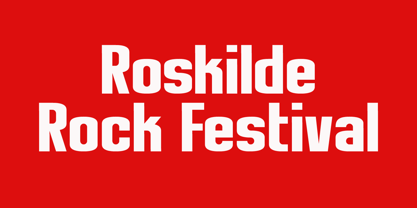
Roskilde
by Hanoded
About Roskilde Font Family
Roskilde is a city in Denmark, famous for its Rock Festival and its Viking Ship museum. Roskilde font is a very legible headline font.
About Hanoded
Hanoded is a type foundry based in The Netherlands and run by David Kerkhoff. After finishing his journalism studies, David traveled extensively and ended up in Israel where he stayed for some years. David had a lot of jobs – zookeeper, goldsmith, artist and cook (to name a few), but settled on working as a tour guide and photographer. David specializes in hand printed typefaces and uses brushes, pens, ink and paint to create his – sometimes scary looking – fonts. He lives in a wee hamlet near the Rhine river, with his wife, three kids, a handful of extremely spoiled chickens and two guinea pigs called Cookie and Chippie.The Premium foundry page can be viewed https://www.myfonts.com/a/font/premium-font-collections/hanoded